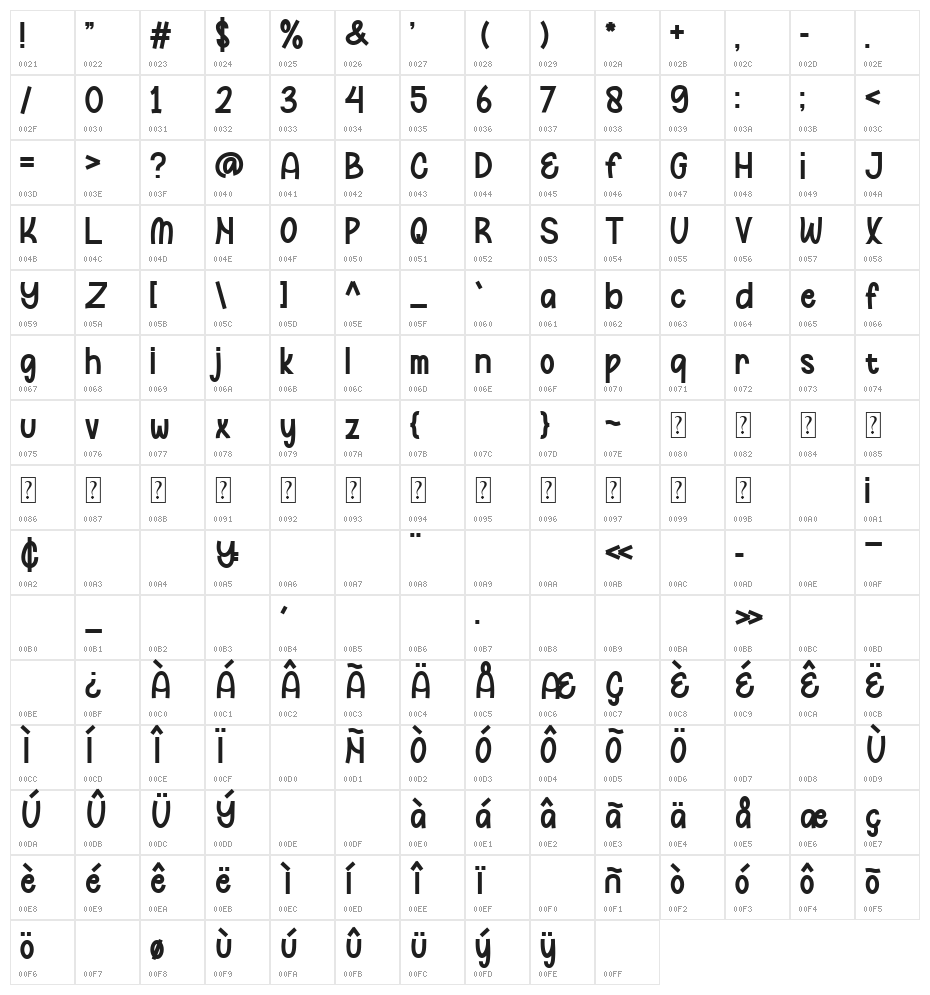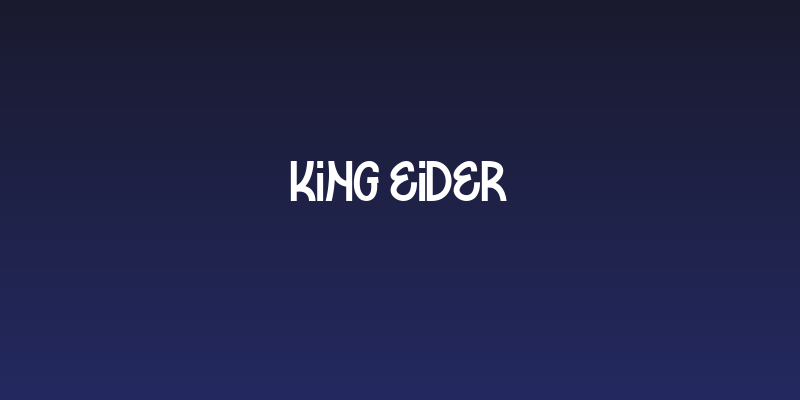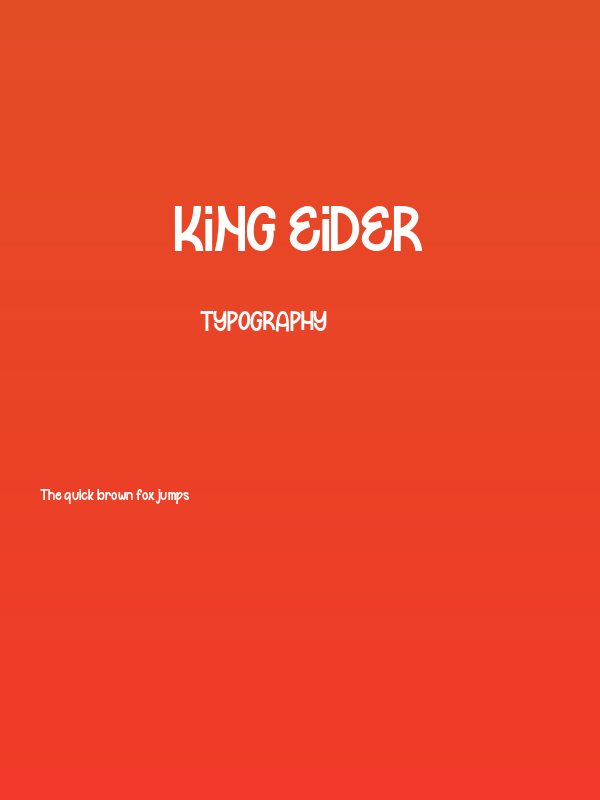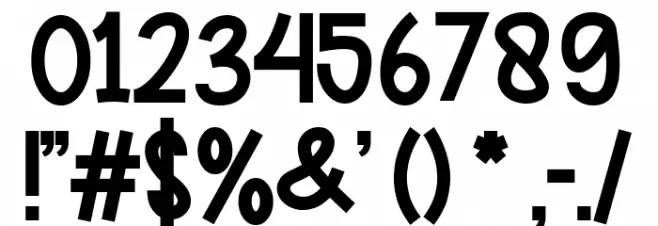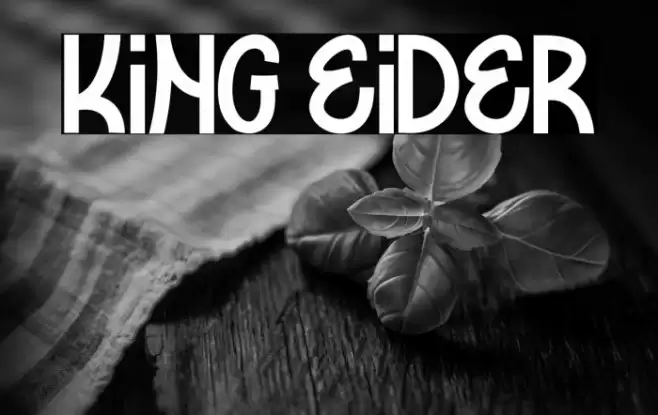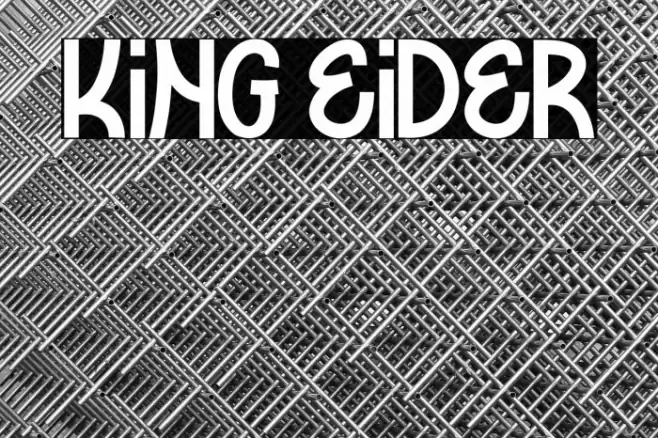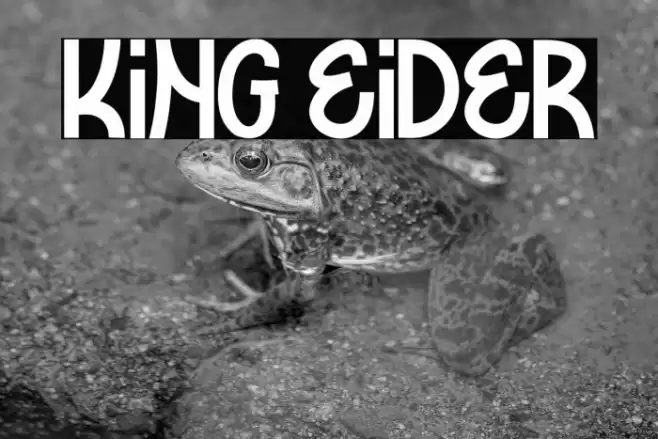
KING EIDER Font
KING EIDER Description
This font features a playful and bold style with rounded edges and a slightly whimsical appearance. The uppercase letters are tall and narrow, with a consistent stroke width that gives them a uniform look. The lowercase letters maintain the same playful style, with some characters like 'e' and 'g' having unique, rounded shapes that add to the font's charm. The numerals are bold and easy to read, matching the overall style of the alphabet. Special characters are also included, maintaining the same bold and rounded characteristics. This font is ideal for projects that require a fun and engaging look.
| Proposed Projects | Ideal for children's books, playful branding, posters, and creative projects. |